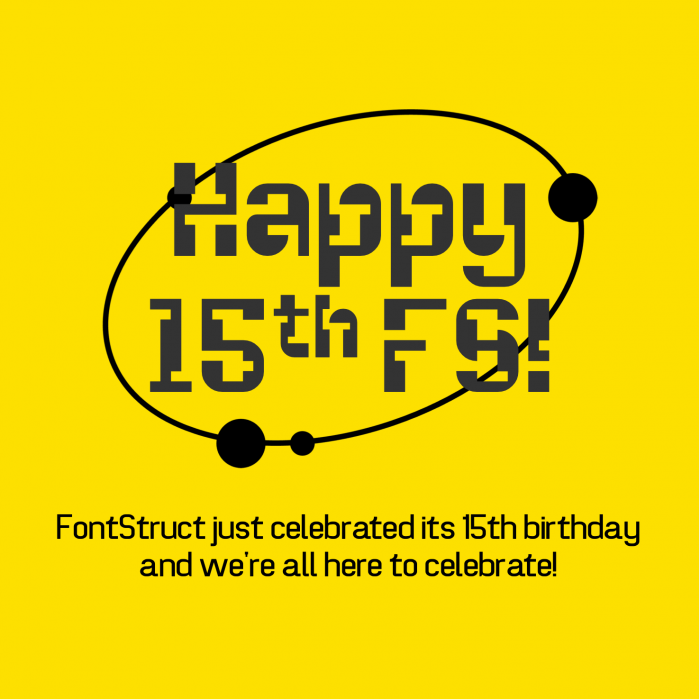
Very conceptual, pretty cool. It's almost pixelated but the rounded corners give a little twist
Strange but good feeling :) Somehow reminiscent of both Data 70 and Apple's Chicago, somehow "computery". I wonder if the tail of the uppercase Q is a bit too large.
Strange but cool. The z is perfect in the selected style.
Very nice 15th anniversary sample. The sample I made had fireworks in the background.
A hidden gem. :)
Certainly has that ‘FontStruct’-y feeling to it, making it perfect for your festive sample. Congrats!